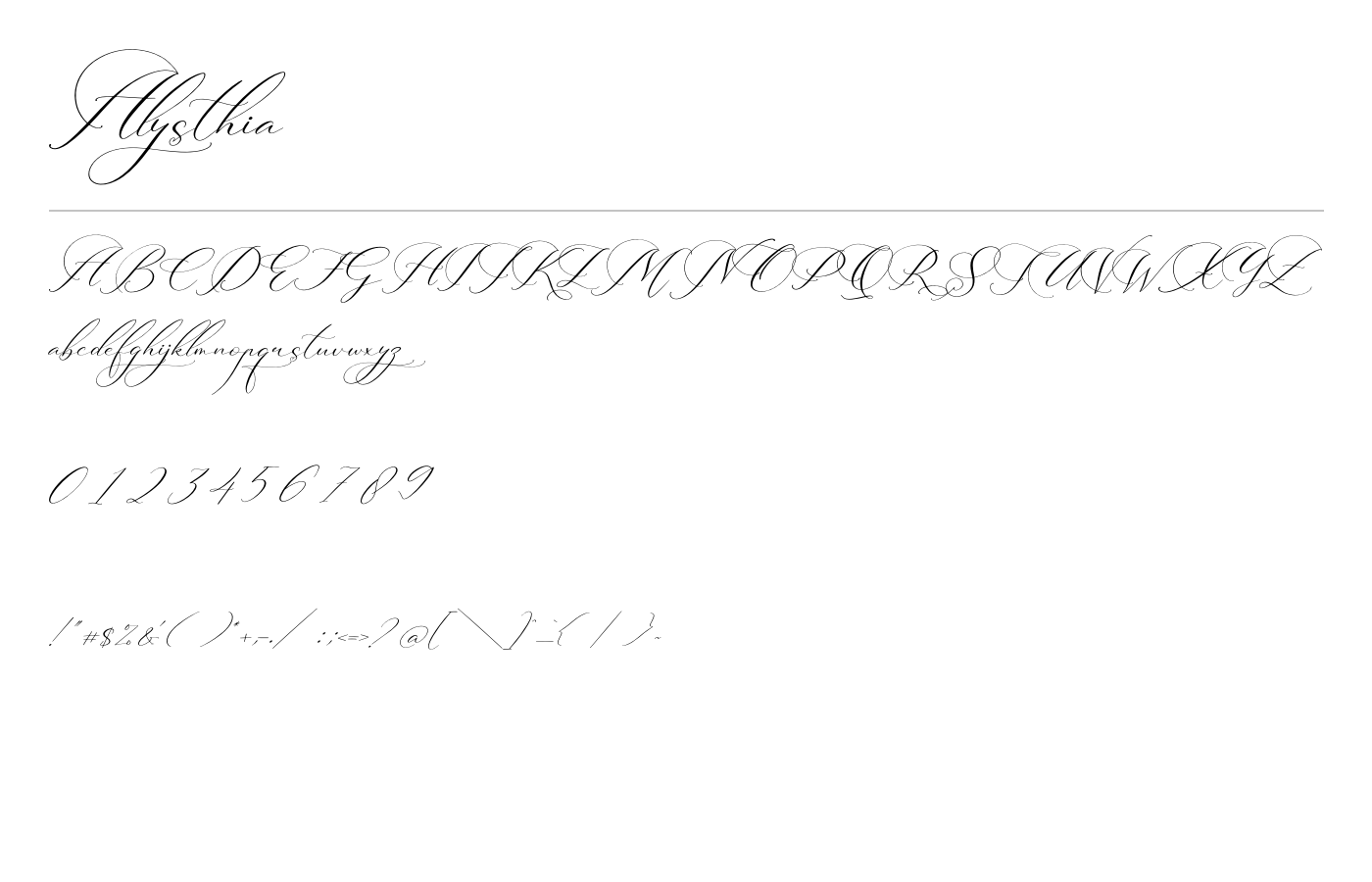
Alysthia is an elegant script font characterized by its delicate, flowing strokes and fine, high-contrast lines that give it a refined, graceful appearance. With its intricate swashes and cursive letterforms, it conveys a romantic and sophisticated mood, making it ideal for wedding invitations, luxury branding, or elegant editorial headlines where a sense of beauty and finesse is desired. This font works best in decorative and display settings where its ornamental style can be fully appreciated.
Alysthia Font
About Alysthia Font